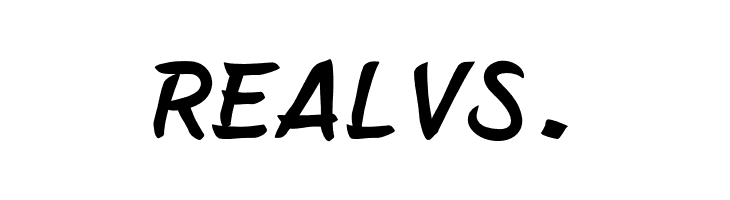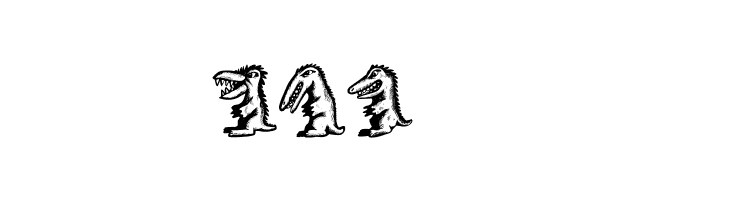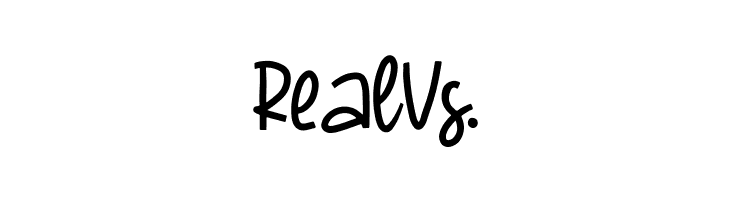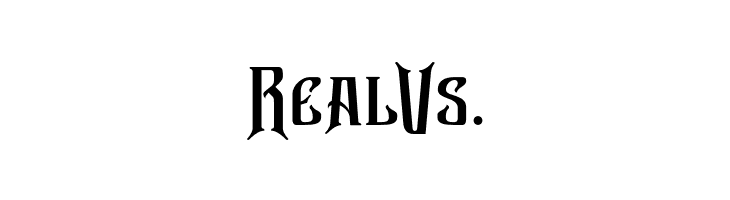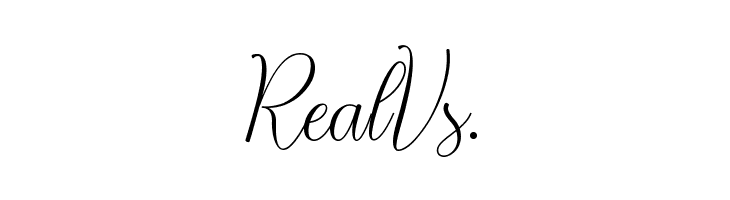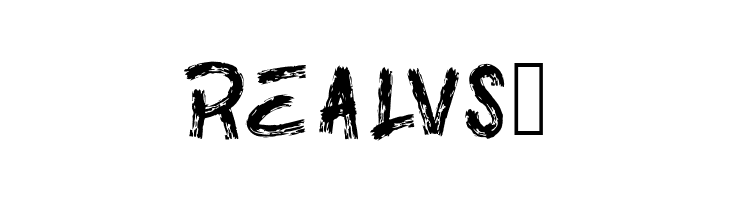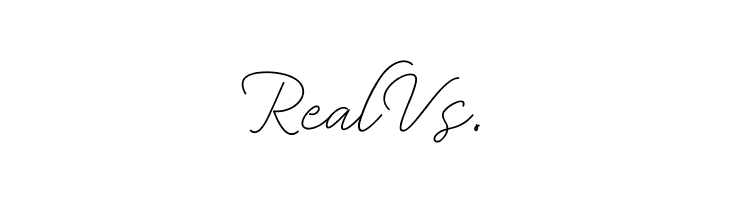
An ancient script with wedge-shaped, angular characters used for monumental inscriptions.
A bold, condensed font with a geometric style and consistent stroke width.
A bold, decorative font with boxed, vintage-style uppercase letters.
A modern italic font with sharp, angular edges and a dynamic slant.
A bold, outlined typeface with a filled interior, offering a modern and structured look.
A bold, outlined font with a modern and geometric style.
A modern, geometric font with tall, narrow letterforms and consistent stroke width.
Bold, rounded, playful sans-serif with a hand-drawn look.
A bold, angular font with a structured, formal style inspired by early 20th-century German design.
A bold, shadowed font with geometric forms and a modern twist.
A playful, bold font with rounded, hand-drawn strokes.
A bold, geometric font with tight spacing and a modern, edgy style.
A bold, geometric font with a blocky, monospaced appearance.
A bold, cursive font with fluid, connected characters and a dynamic style.
A playful, handwritten font with smooth, rounded edges and a casual style.
A playful, dinosaur-themed decorative font with detailed, bold characters.
A playful, dinosaur-themed decorative font with detailed textures.
A playful handwritten font with a casual and friendly style.
A flowing, cursive script font with elegant loops and swashes.
A bold, gothic-inspired font with sharp serifs and a dramatic presence.
A bold, hand-drawn font with an expressive and playful style.
A bold, hand-drawn font with textured, brush-like strokes.
A bold, edgy font with sharp, angular characters.
A bold, angular font with a dynamic, hand-crafted appearance.
An elegant and flowing script font with interconnected characters and refined curves.
A bold, whimsical font with elegant curves and a modern touch.
A bold, modern sans-serif font with clean lines and geometric structure.
A playful, bold font with a hand-drawn, whimsical style.
A bold, italic handwritten font with a dynamic and fluid style.
A bold, italic script font with a playful, handwritten style.
A lively and dynamic script font with flowing, cursive letterforms.
A bold, playful handwritten font with dynamic, flowing letterforms.